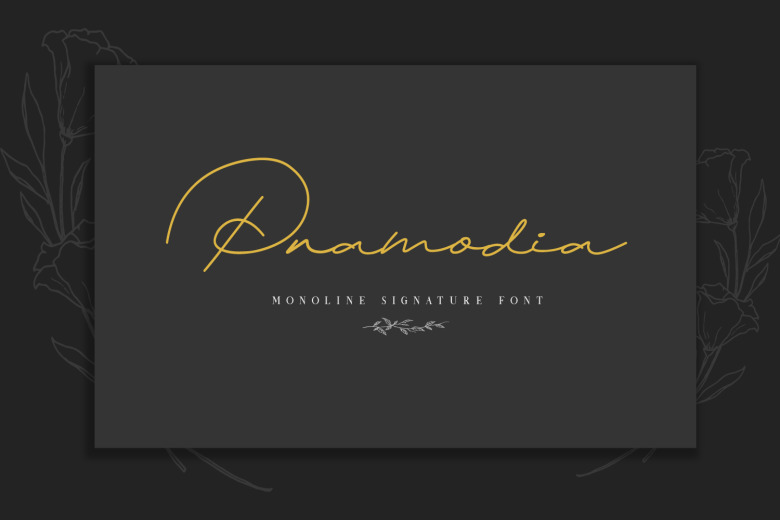
Pramodia Font
Pramodia is a stunning monoline signature script typeface- which finds that middle ground between tradition elegance and real handwritten style. It has got an very classic look, while still feeling friendly. Pramodia is the font to use for really great and unique designs.
Pramodia Monoline Signature Font